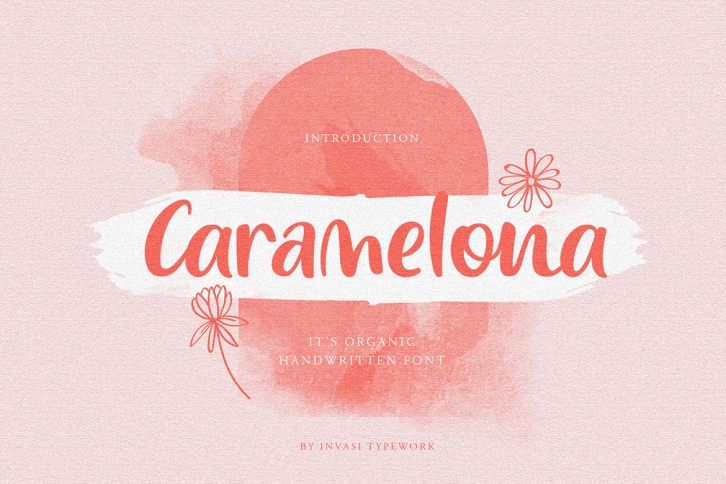
Caramelona is a relaxed and organic handwritten font that is crafted with great care for maximum results. It will add elegance and class to any of your design projects. This font is PUA encoded which means you can access all of the glyphs and swashes with ease.